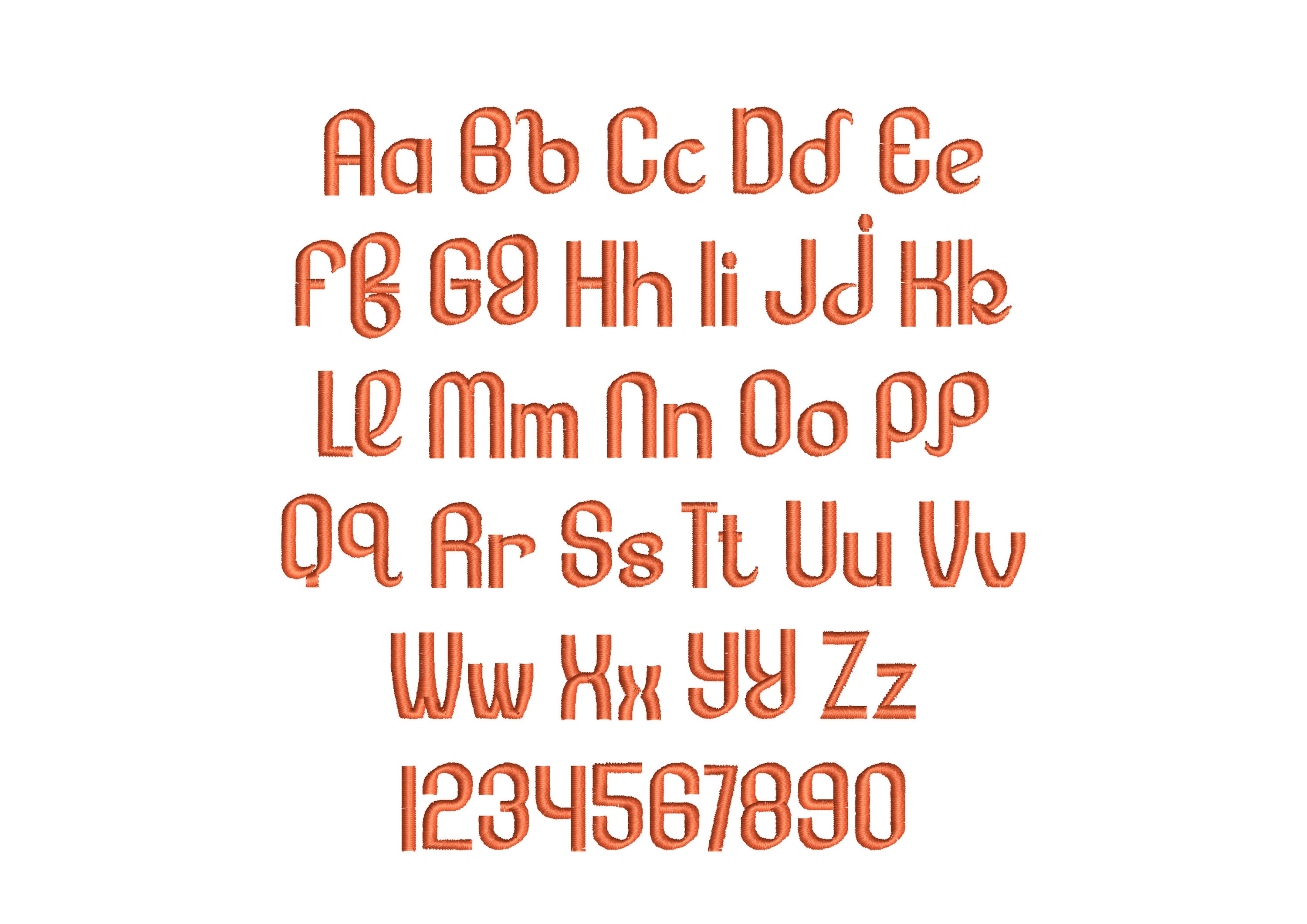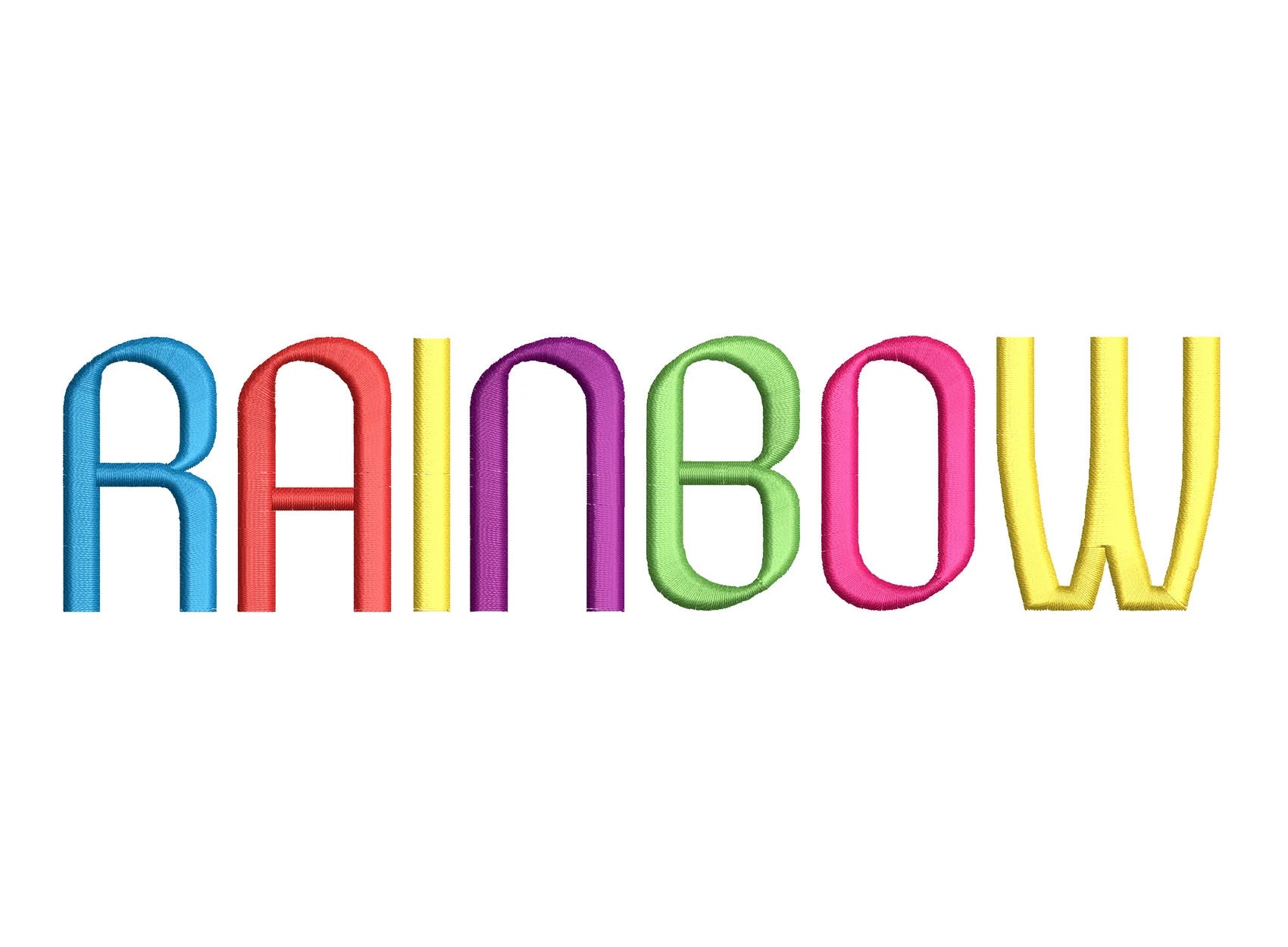
Retro ribbon straight Font kids baby alphabet narrow letters machine embroidery designs in many sizes 0.4 thru 2.3 inches, BX included
Uppercase and lowercase letters, numbers.